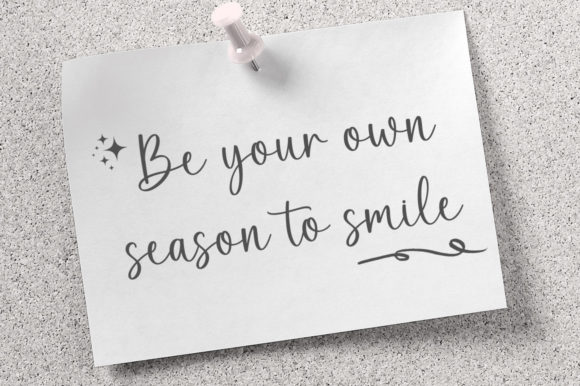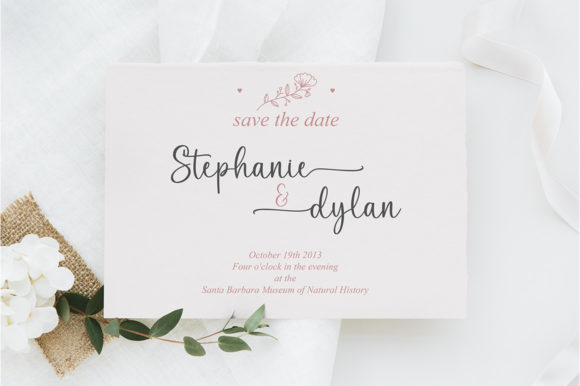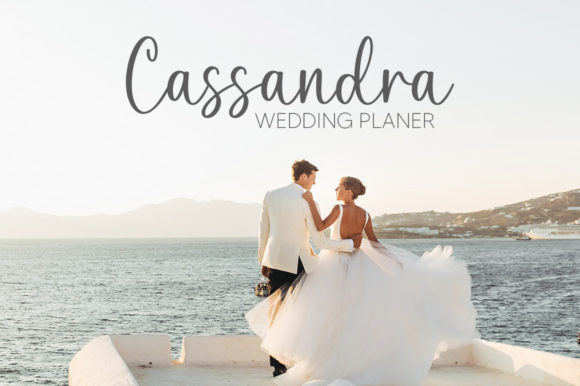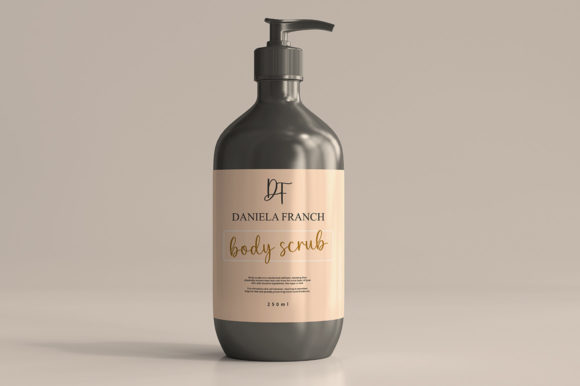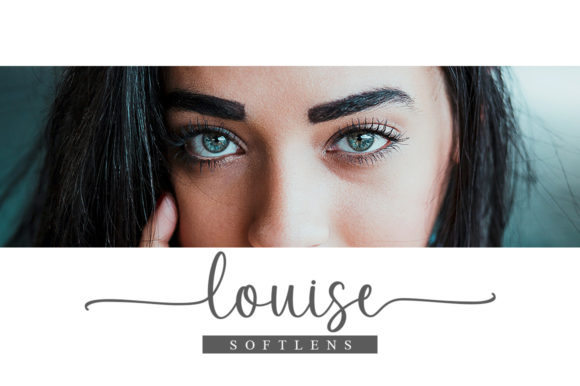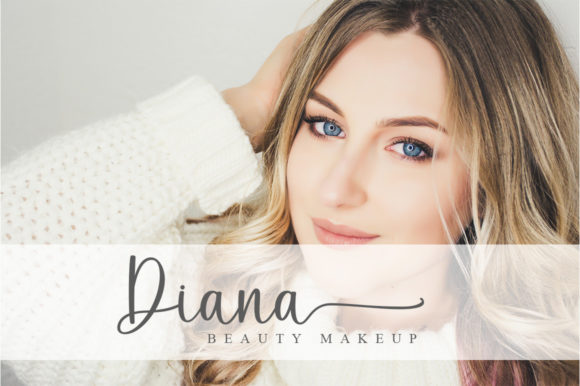
Alesha Font: Elevate Your Designs with Delicate Elegance
In the world of typography, a font can make or break a design. For designers and crafters seeking a touch of elegance and sophistication, the Alesha font is an exceptional choice. This beautiful, handwritten font is characterized by its delicate and flowing lines, making it perfect for a wide range of design projects.
The Beauty of Alesha Font
Alesha is a delicate, elegant, and flowing handwritten font that exudes refinement and poise. Its well-balanced characters are meticulously crafted to create a harmonious visual experience. Whether you’re working on a branding project, wedding invitation, or social media graphics, Alesha’s unique charm is sure to captivate your audience.
Key Features of Alesha Font
• Delicate and Elegant: Alesha’s flowing lines and curves create a sophisticated look that’s perfect for designs that require a touch of refinement.
• Well-Balanced Characters: The font’s characters are carefully crafted to ensure a harmonious visual experience, making it easy to read and visually appealing.
• PUA Encoded: Alesha is PUA (Private Use Area) encoded, which means you can access all the glyphs and swashes with ease, giving you greater creative control.
• Versatile: Alesha matches a wide pool of designs, making it an excellent choice for various projects, from elegant branding to beautiful stationery.
Why Choose Alesha Font?
With so many fonts available, why choose Alesha? Here are a few compelling reasons:
• Unique and Eye-Catching: Alesha’s distinctive style sets it apart from more traditional fonts, ensuring your designs stand out from the crowd.
• Ease of Use: The font’s PUA encoding makes it easy to access and use the various glyphs and swashes, saving you time and effort.
• High-Quality Design: Alesha is crafted with attention to detail, ensuring a high-quality design that reflects your professionalism and creativity.
Alesha font is an excellent choice for designers and crafters seeking a beautiful, elegant, and versatile font for their projects. Whether you’re creating:
• Branding and Logos: Alesha’s unique style makes it perfect for creating elegant and sophisticated brand identities.
• Wedding Invitations and Stationery: The font’s delicate lines and curves create a romantic and whimsical feel, ideal for wedding designs and stationery.
• Social Media Graphics: Alesha’s elegance and refinement make it suitable for social media graphics, such as quotes, promotions, and announcements.
In conclusion, the Alesha font is an exceptional choice for designers and crafters seeking a delicate, elegant, and flowing handwritten font. Its well-balanced characters, PUA encoding, and versatility make it perfect for a wide range of design projects. With Alesha, you can elevate your designs and add a touch of sophistication and refinement. So why wait? Discover the beauty of Alesha font and take your designs to the next level.